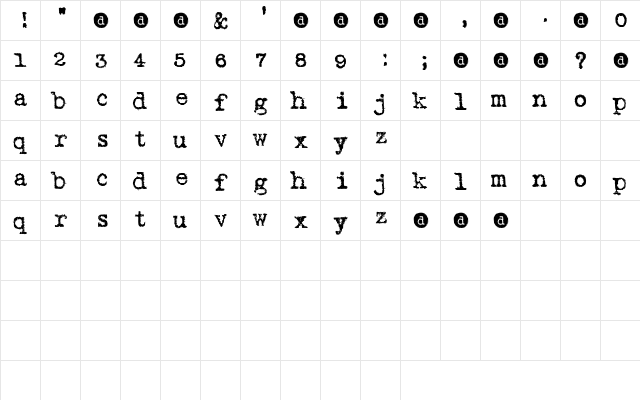
Autos Regular
Design Context for Autos Typeface
Autos is a composed and adaptable typeface that performs quietly and consistently across a wide range of design contexts.